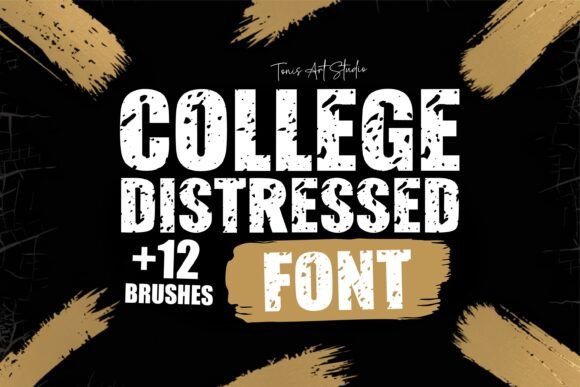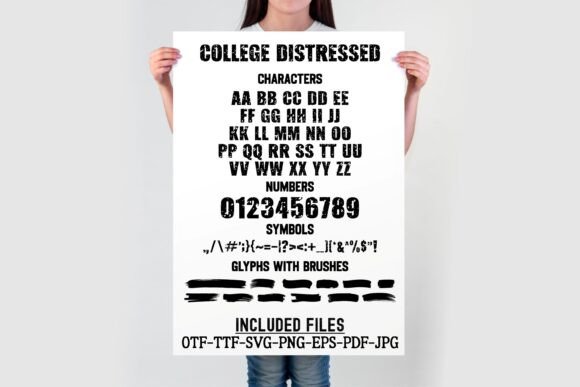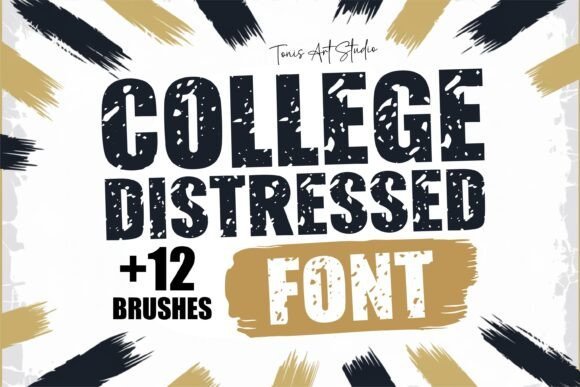
Introduction to College Distressed Font
The College Distressed Font is a bold, grunge-style typeface with a rugged, vintage aesthetic.
Designed with distressed textures and rough edges, this font is perfect for retro college graphics, posters, t-shirts, logos, and branding With a handcrafted aged effect, this font is ideal for designs that need a worn-out, nostalgic feel.
Key Features of College Distressed Font
Why Choose College Distressed Font?
College Distressed Font offers exceptional quality and versatility, making it a valuable addition to your design toolkit. Whether you’re creating for personal projects or commercial use, College Distressed Font delivers professional results.